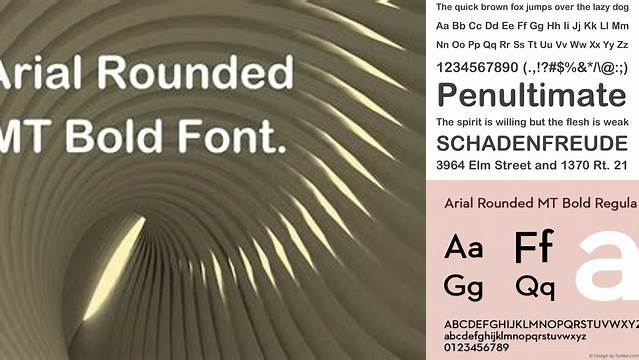
Arial Rounded MT: Free Font Download & Design Guide
Hey guys! Are you on the hunt for a sleek, modern font that can add a touch of personality to your projects? Look no further because we're diving deep into Arial Rounded MT, a fantastic typeface that's super versatile and easy on the eyes. This guide will walk you through everything you need to know, from where to get it for free to how to make the most of it. Let's get started!
What is Arial Rounded MT? The Lowdown
First things first, what exactly is Arial Rounded MT? Well, it's a variation of the classic Arial font, but with a twist. Instead of sharp corners, all the letters have rounded edges, giving it a softer, more approachable feel. Think of it like the friendly cousin of the standard Arial. This subtle difference makes a huge impact, transforming the overall look and feel of your text. The font belongs to the sans-serif family, which means it doesn't have the little strokes (serifs) at the ends of the letters. This makes it clean, modern, and easy to read, especially on screens. Arial Rounded MT is a great choice for various applications. It's widely used in logos, headings, body text, and even in user interfaces. Its readability and friendly appearance make it a favorite among designers and businesses. You'll often see it in branding materials, websites, and printed documents, which proves its adaptability. So, if you're looking for a font that's both stylish and functional, you're in the right place. It's not just about aesthetics; it's about creating a positive and welcoming impression. That's where Arial Rounded MT shines! You'll often find it pre-installed on many computers. The font's widespread availability and easy installation make it an accessible choice for everyone, regardless of their design experience. The design of Arial Rounded MT allows it to work well in both large and small sizes. It doesn't lose its charm when scaled up for headlines or when used in smaller sizes for body text, maintaining its readability and visual appeal. The rounded edges not only enhance the font's visual appeal but also help to guide the eye smoothly across the text, contributing to a better reading experience. This makes it a great choice for long-form content, ensuring that your audience stays engaged. If you're aiming for a modern, friendly, and easily readable design, Arial Rounded MT is your go-to font. It's a safe bet for anything from professional documents to creative projects. Its versatility and widespread availability ensure that it remains a popular choice for years to come.
Best Uses for Arial Rounded MT: Unleash Your Creativity
Okay, so you've got Arial Rounded MT installed and ready to go. Now, how do you use it to its full potential? The versatility of this font makes it perfect for many applications, from everyday documents to eye-catching designs. Arial Rounded MT is excellent for headings, especially in digital designs like websites, social media graphics, and presentations. The rounded edges give a friendly vibe. This makes it perfect for welcoming your audience and making your content more approachable. The font is a great option for body text. It is easy to read on both screens and in print. It provides a comfortable reading experience. The font is widely used in branding and marketing materials. It is a great option for logos, brochures, and advertisements, as its friendly appearance can help build trust with your audience. This font works well in user interfaces, which makes it easier to navigate and more visually appealing. The font's clean lines and friendly aesthetic are well-suited for the design of buttons, menus, and other UI elements. It's also a solid choice for creating visually appealing documents, such as reports, newsletters, and presentations. Its clarity and readability make it a great choice for conveying information. This font can also be used in creative projects like posters, invitations, and artwork. The rounded style adds a touch of uniqueness. This makes your designs stand out. You can experiment with different sizes, weights, and colors to achieve the look you want. Be creative with the font! Try using different sizes, weights, and colors to see how they change the look of your designs. To achieve a cohesive look, consider pairing it with other fonts. A sans-serif font for headings and a serif font for body text can be a great combination. This helps create visual interest. Remember, the most important thing is to experiment and have fun. Explore different uses and find the perfect way to integrate Arial Rounded MT into your projects. This font is super versatile and adds a touch of style to any design! Embrace the versatility of Arial Rounded MT and let your creativity flow!
Design Tips and Tricks: Making the Most of Arial Rounded MT
Want to take your Arial Rounded MT designs to the next level? Here are some design tips and tricks to help you. First, experiment with font sizes and weights. Arial Rounded MT comes in various weights, such as regular, bold, and italic. Using these different weights can help you create a visual hierarchy. Making your text easier to scan and understand. Use bold for headings and subheadings. Use regular for body text. Adjusting the font size can also make a big impact on the readability and aesthetics of your design. Try different font sizes for different elements, such as headings, subheadings, and body text. This helps to create visual interest and guide the reader's eye. Consider the color of your font. The color can significantly impact the design's overall look. Arial Rounded MT pairs well with various colors. Select colors that complement your design and convey the right message. Remember to always keep your audience in mind. Choosing a color that works for your target audience is important. It is important to ensure the color doesn’t clash with the background. Next, think about spacing. The spacing between letters (kerning), words (tracking), and lines (leading) is crucial for readability. Adjust these settings to ensure your text is easy on the eyes. You want your text to be comfortable to read. Always adjust the spacing to improve readability. You can also try different styles and combinations of fonts. While Arial Rounded MT is a great font on its own, it works well with other fonts. Pairing it with a serif font can provide an interesting contrast. This can enhance the visual appeal of your design. When in doubt, consider using a contrasting font. Remember to keep it simple. Avoid overcrowding your designs with too much text or graphics. Use a clean, uncluttered layout. You can focus on the most important elements. Create a more impactful and professional design. Use Arial Rounded MT to create beautiful and effective designs. Use these tips and tricks to create stunning designs. Have fun experimenting with different combinations and styles. Have fun and good luck with your designs!